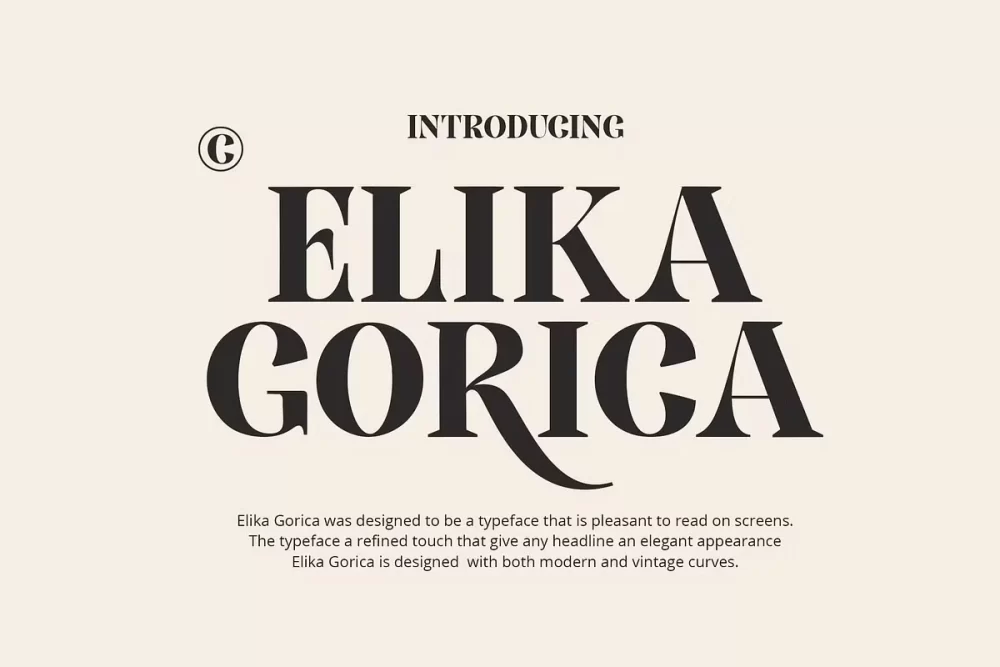
Elika Gorica Font
Elika Gorica was designed to be a typeface that is pleasant to read on screens. The typeface a refined touch that give any headline an elegant appearance Elika Gorica is designed with both modern and vintage curves. Elika Gorica has pretty much alternatives glyphs choice in the pack and support multilingual.
It works perfectly for creative project such as logo, T-shirt / apparel, badge, invitation, packaging,headline, poster, magazine, greeting card, and wedding invitation. You can access the open type features and multilingual on mostly Adobe programs, such as Adobe Indesign, Adobe Illustrator, Adobe photoshop etc.
Elika Gorica Serif Font